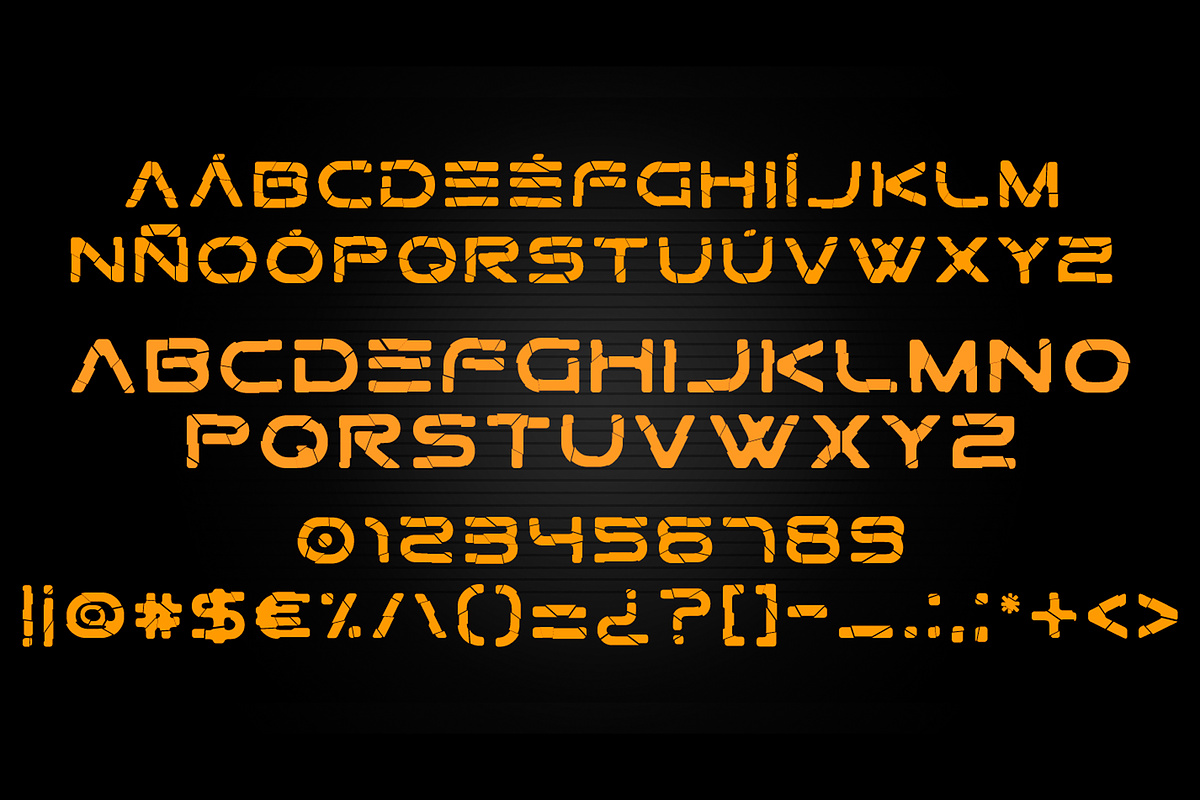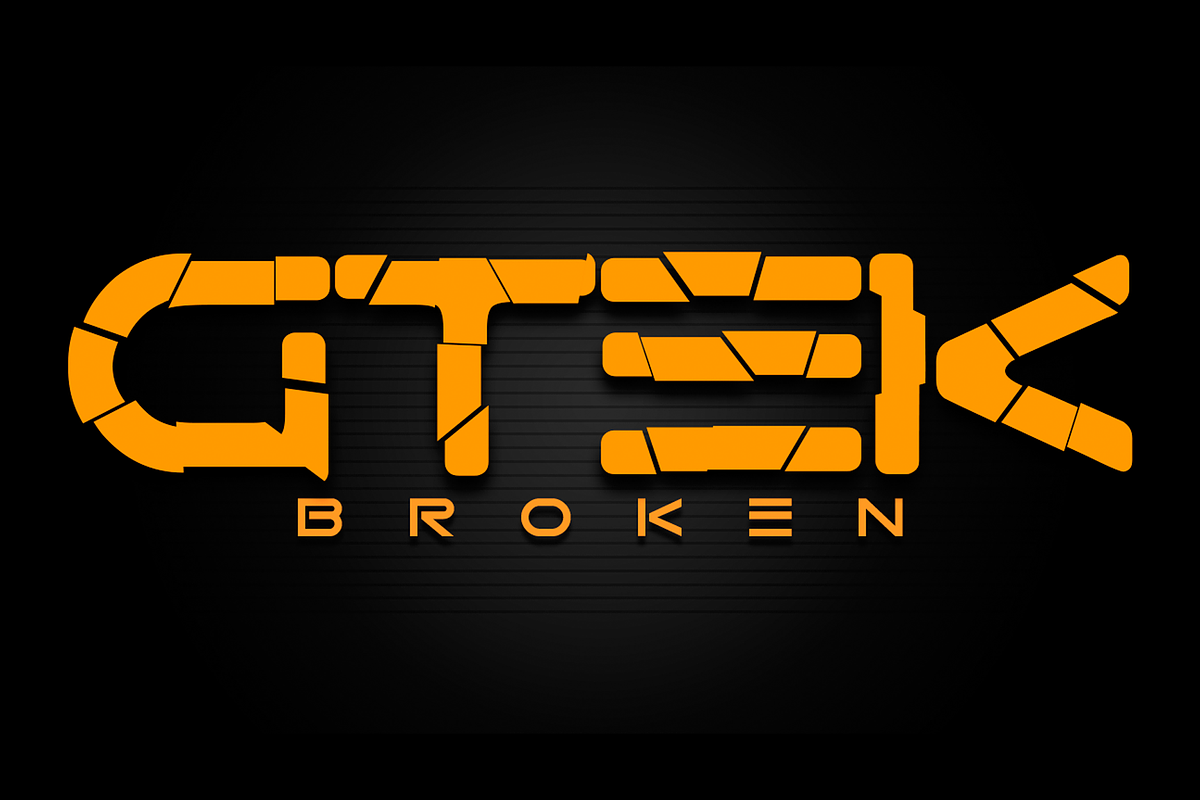
Gtek - Broken
" G T E K - B R O K E N " F o n t This Font contains 99 characters, including uppercase, lowercase, numbers and symbols. TTF + OTF format Registered source
- " G T E K - B R O K E N " F o n t This Font contains 99 characters, including uppercase, lowercase, numbers and symbols.
Gtek - Broken by Qbotype Fonts fits naturally into Branding, posters, packaging, typography.